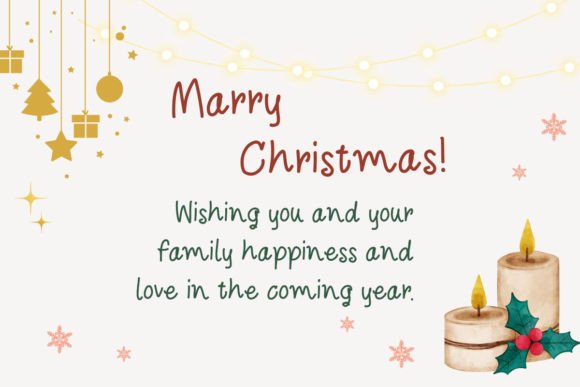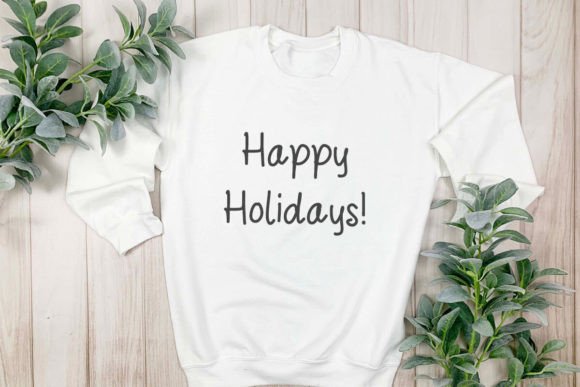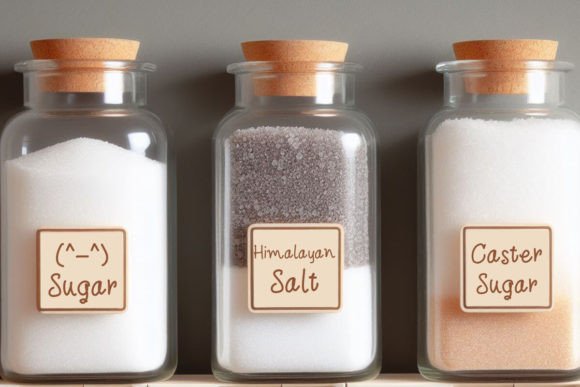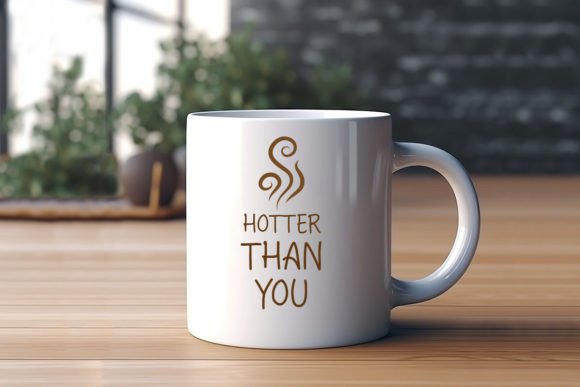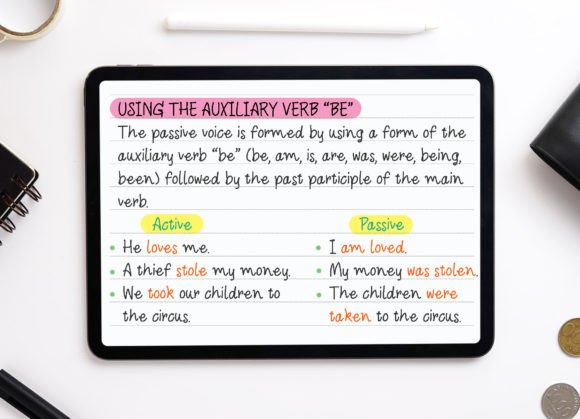
Introducing Good Friday Fu Font: The Perfect Addition to Your Design Arsenal
Are you tired of using the same old fonts in your designs? Look no further! Good Friday Fu Font is a stylish, playful, and friendly sans serif font style that’s sure to elevate your creative projects. Whether you’re a designer, crafter, or DIY enthusiast, this font is a must-have in your collection.
What Makes Good Friday Fu Font So Special?
Good Friday Fu Font is a unique and versatile font that’s perfect for a wide range of applications. Its playful and friendly vibe makes it ideal for:
- Fun projects: Add a touch of whimsy to your designs with this fun and quirky font.
- Diary planners: Keep your planners and journals organized and stylish with Good Friday Fu Font.
- Wedding invitations: Make your wedding invitations stand out with this beautiful and elegant font.
- Thank you cards: Express your gratitude in style with Good Friday Fu Font.
- Children-themed designs: Create fun and engaging designs for kids with this playful font.
- Quotes: Add a touch of personality to your quotes with Good Friday Fu Font.
- Greeting cards: Make your greeting cards extra special with this friendly font.
- Logos: Create a unique and memorable logo for your brand with Good Friday Fu Font.
- Posters: Grab attention with this eye-catching font.
- Blogs: Add a personal touch to your blog with Good Friday Fu Font.
- Bag and T-shirt designs: Create stylish and trendy designs for your bags and T-shirts.
- Clothing and other designs: Use Good Friday Fu Font to add a touch of personality to your designs.
Key Features of Good Friday Fu Font
Good Friday Fu Font has several key features that make it a must-have for designers and crafters:
- Stylish and modern design: This font has a sleek and contemporary look that’s perfect for modern designs.
- Playful and friendly vibe: Good Friday Fu Font has a fun and approachable feel that’s perfect for designs that need a personal touch.
- Sans serif: This font is clean and easy to read, making it perfect for body text and headlines.
- Versatile: Good Friday Fu Font can be used for a wide range of applications, from digital designs to print materials.
Tips for Using Good Friday Fu Font
Here are some tips for getting the most out of Good Friday Fu Font:
- Pair it with other fonts: Good Friday Fu Font looks great when paired with other fonts, such as serif fonts or script fonts.
- Experiment with colors: This font looks great in a variety of colors, from bright and bold to pastel and soft.
- Use it for headlines and body text: Good Friday Fu Font is clean and easy to read, making it perfect for both headlines and body text.
- Add a personal touch: Use Good Friday Fu Font to add a personal touch to your designs, such as in illustrations or graphics.
Good Friday Fu Font is a versatile and stylish font that’s perfect for designers, crafters, and DIY enthusiasts. Its playful and friendly vibe makes it ideal for a wide range of applications, from fun projects to wedding invitations. With its modern design and clean lines, this font is sure to elevate your creative projects and add a personal touch to your designs.